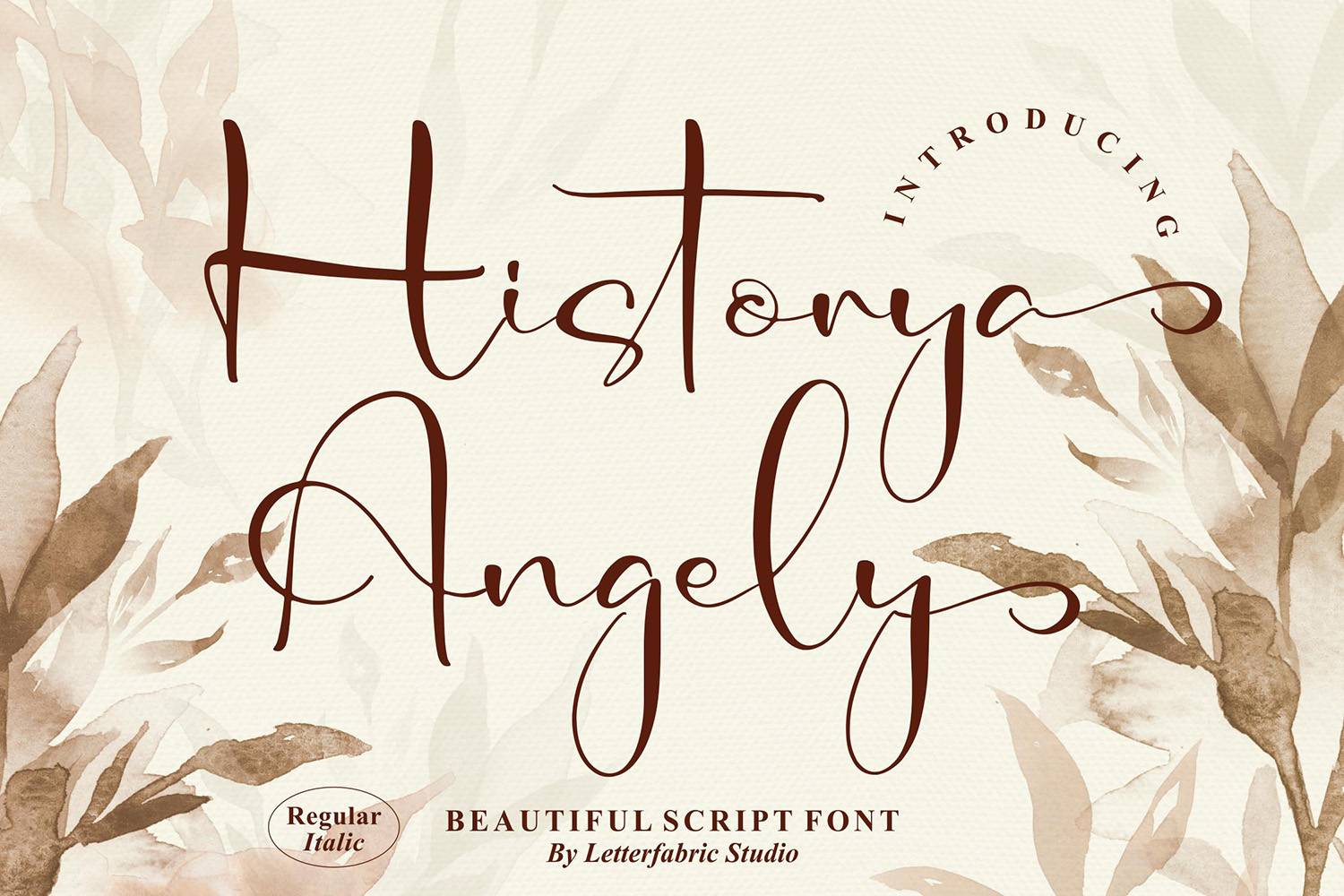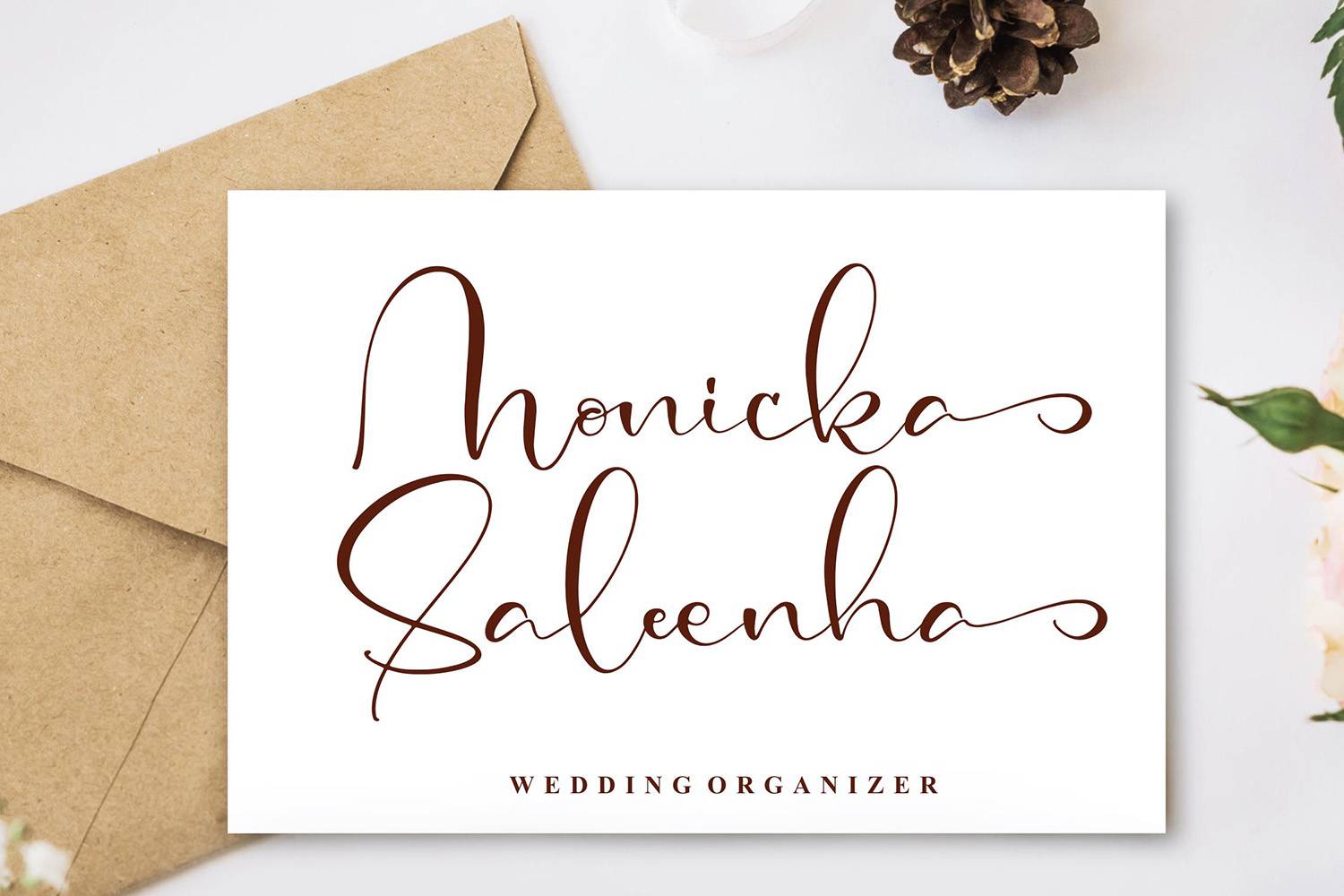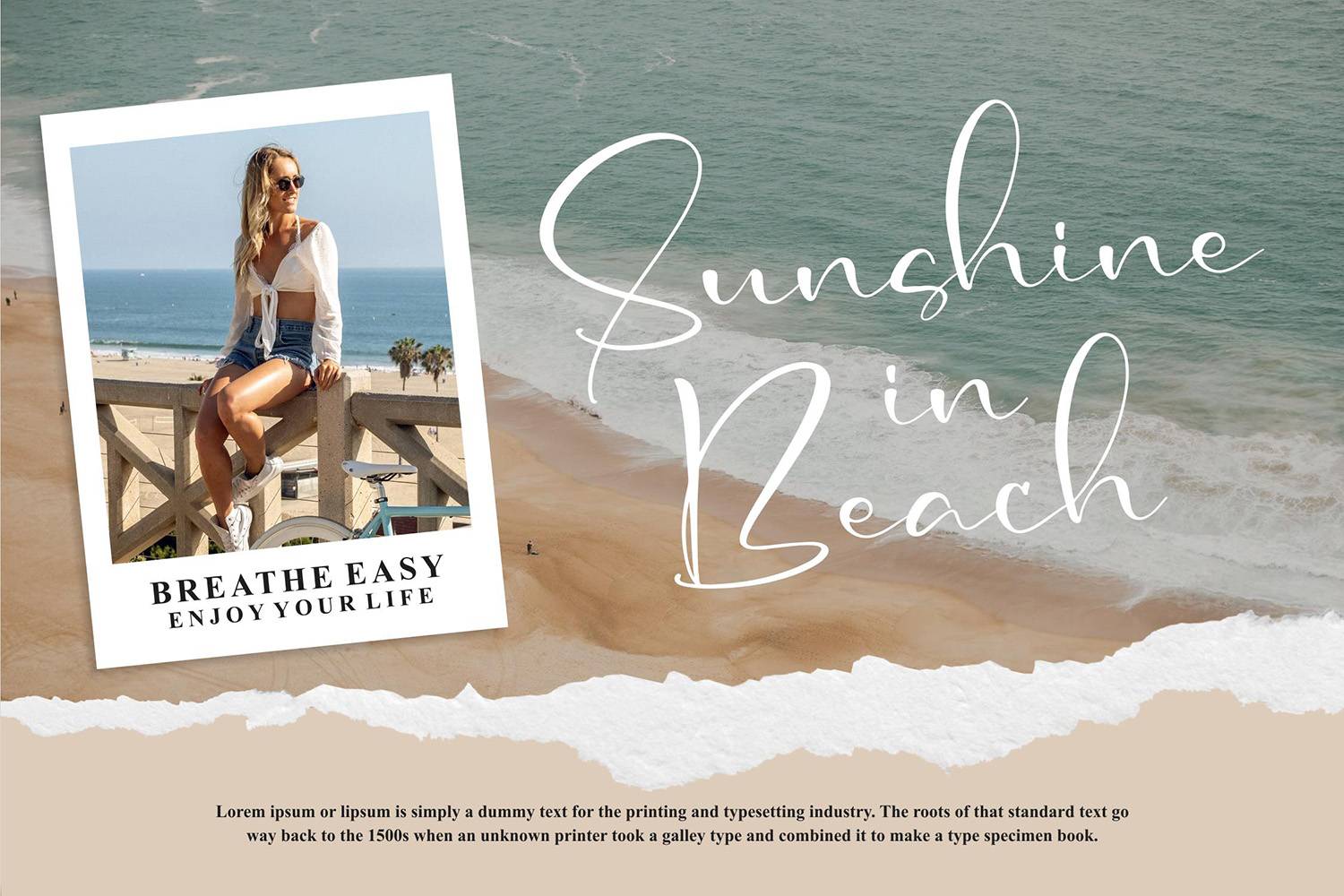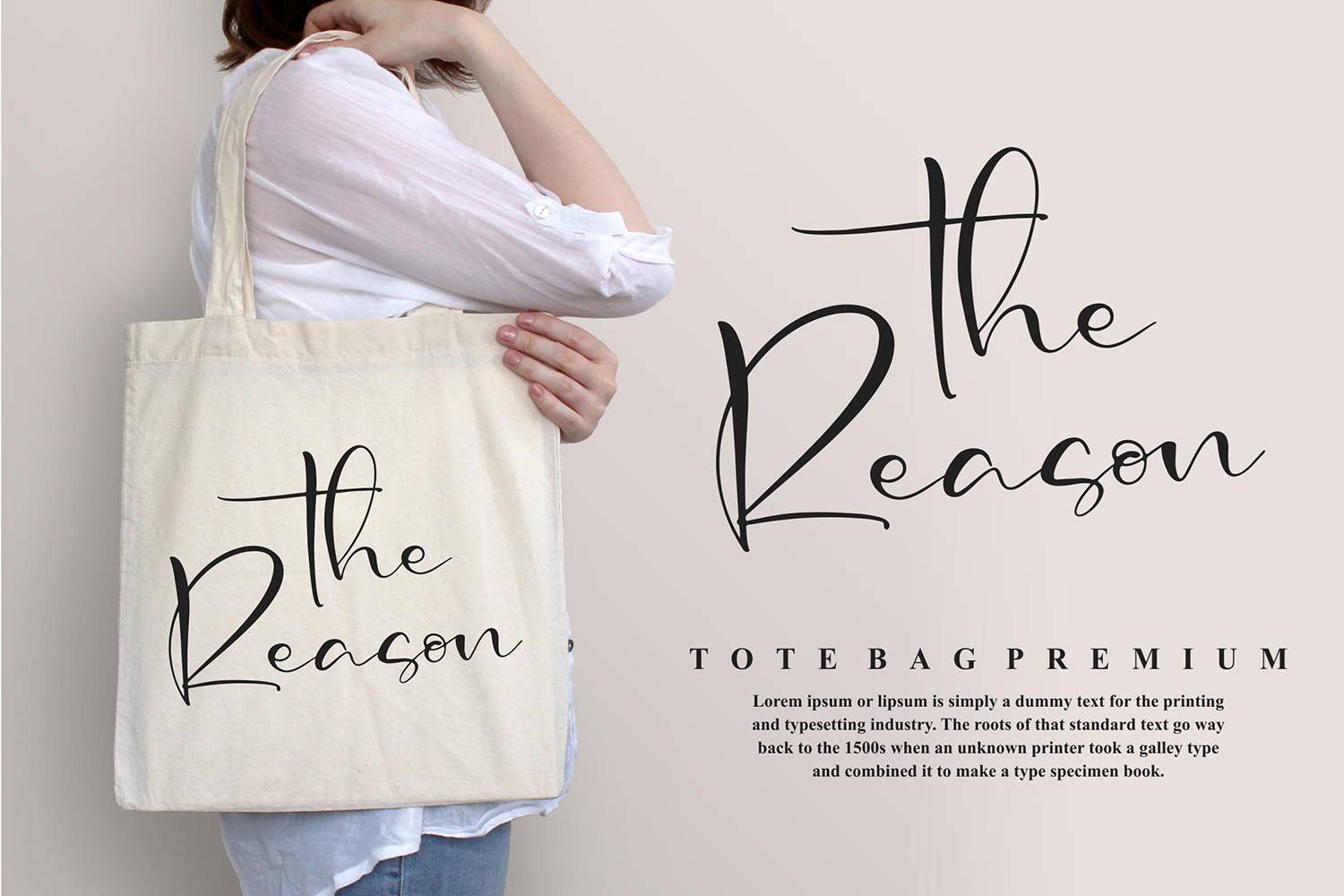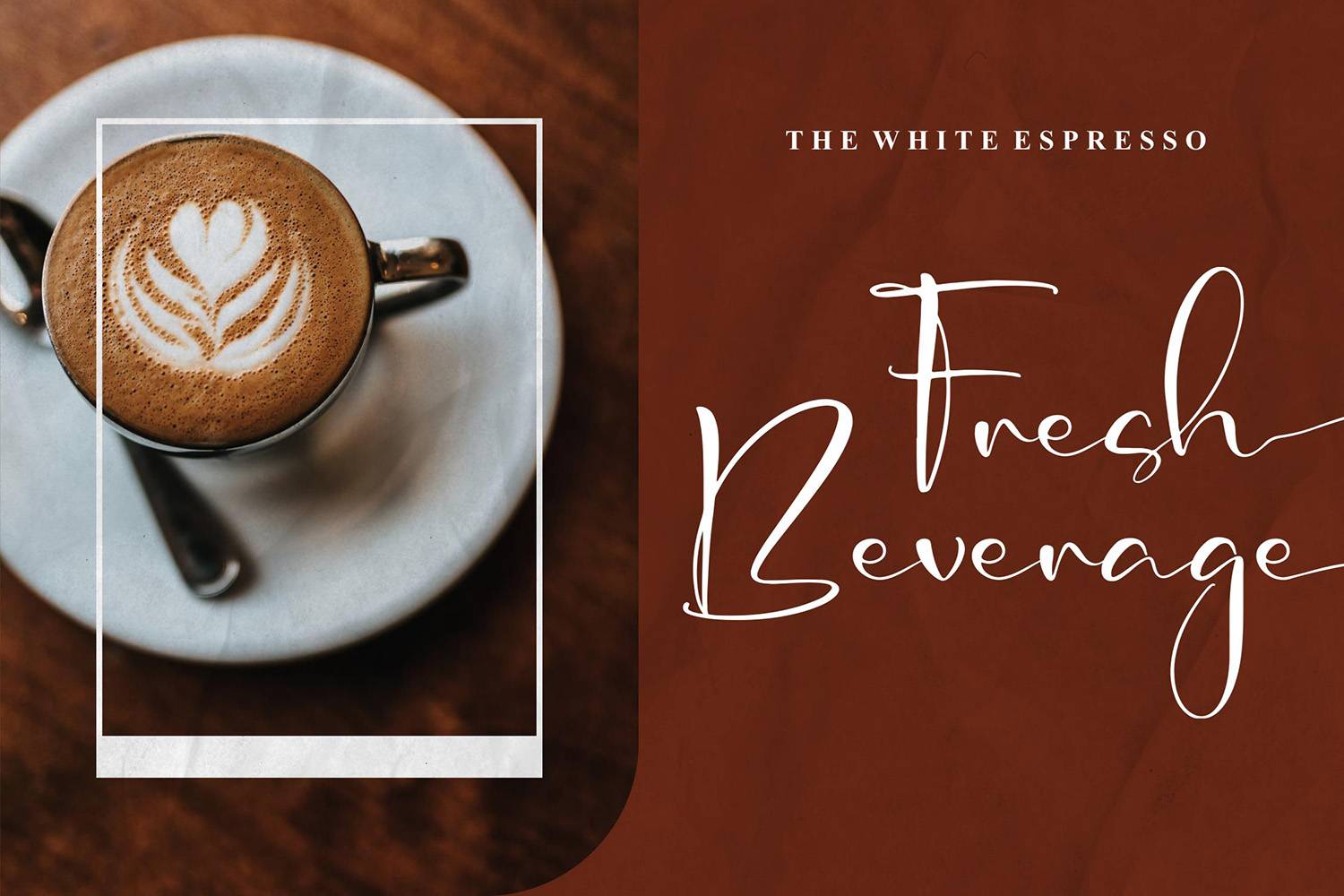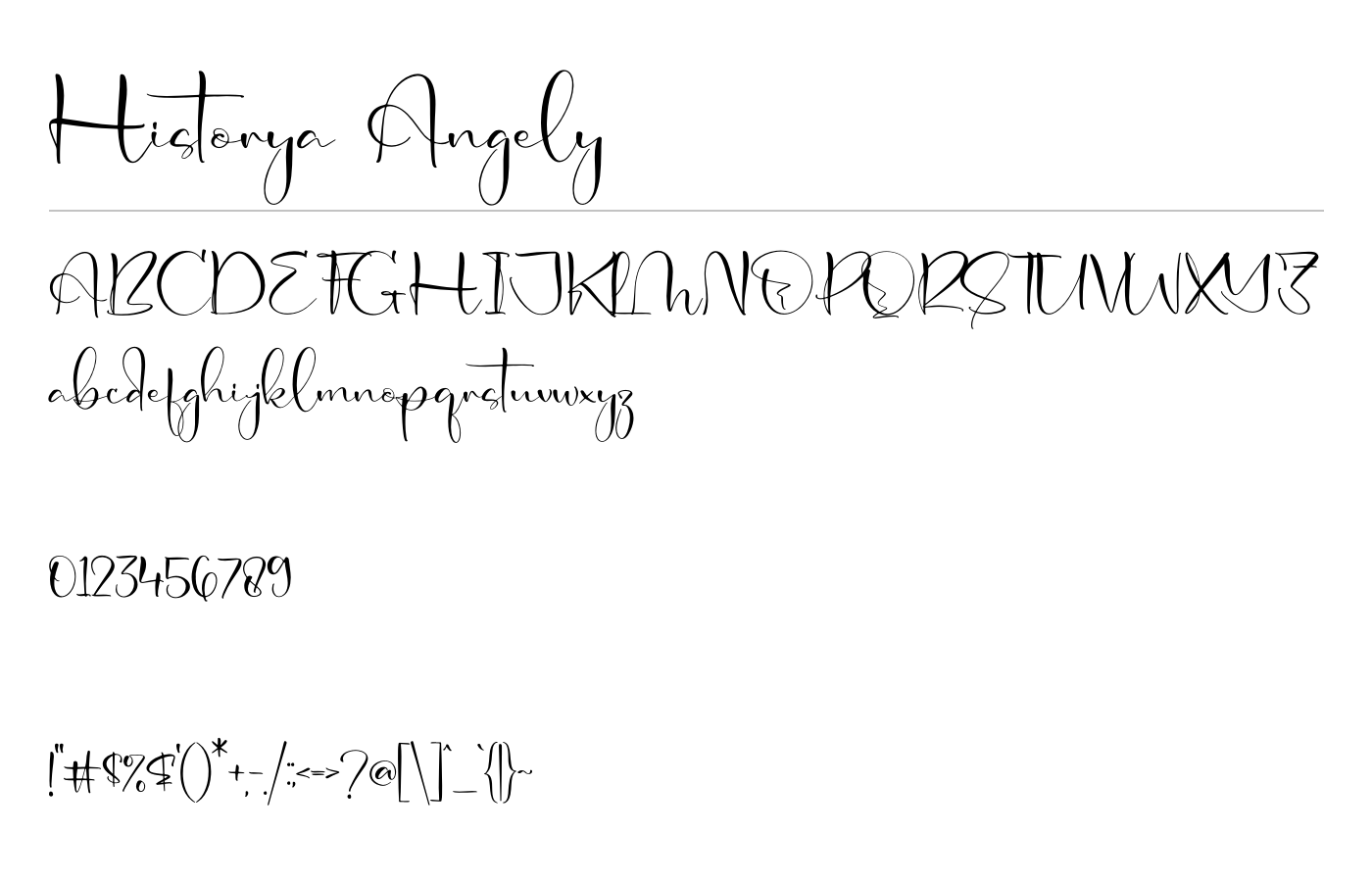
Historya Angely is an elegant, delicate script font characterized by its thin, flowing strokes and graceful, hand-drawn appearance. Its tall x-height and fine lines convey a light, airy feeling that is perfect for romantic or feminine designs, making it ideal for wedding invitations, branding, and stylish editorial projects that seek a personal and sophisticated touch.
Historya Angely Font
About Historya Angely Font